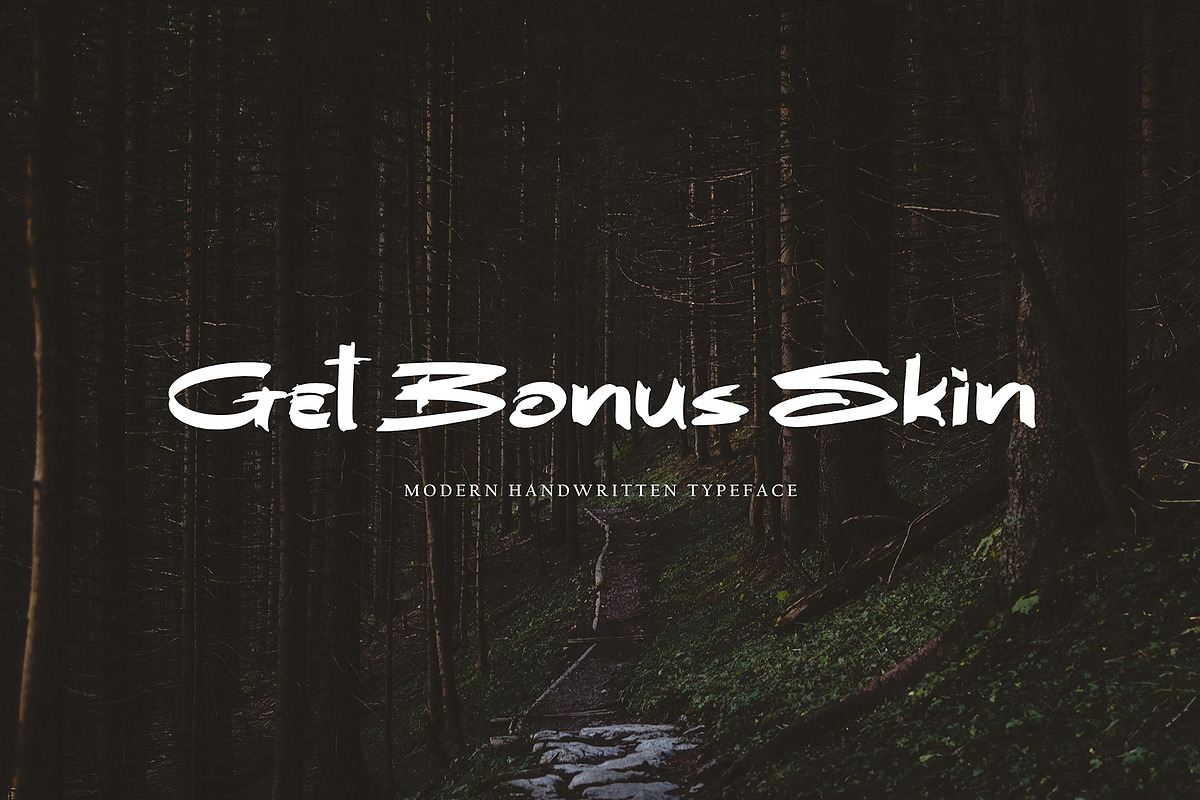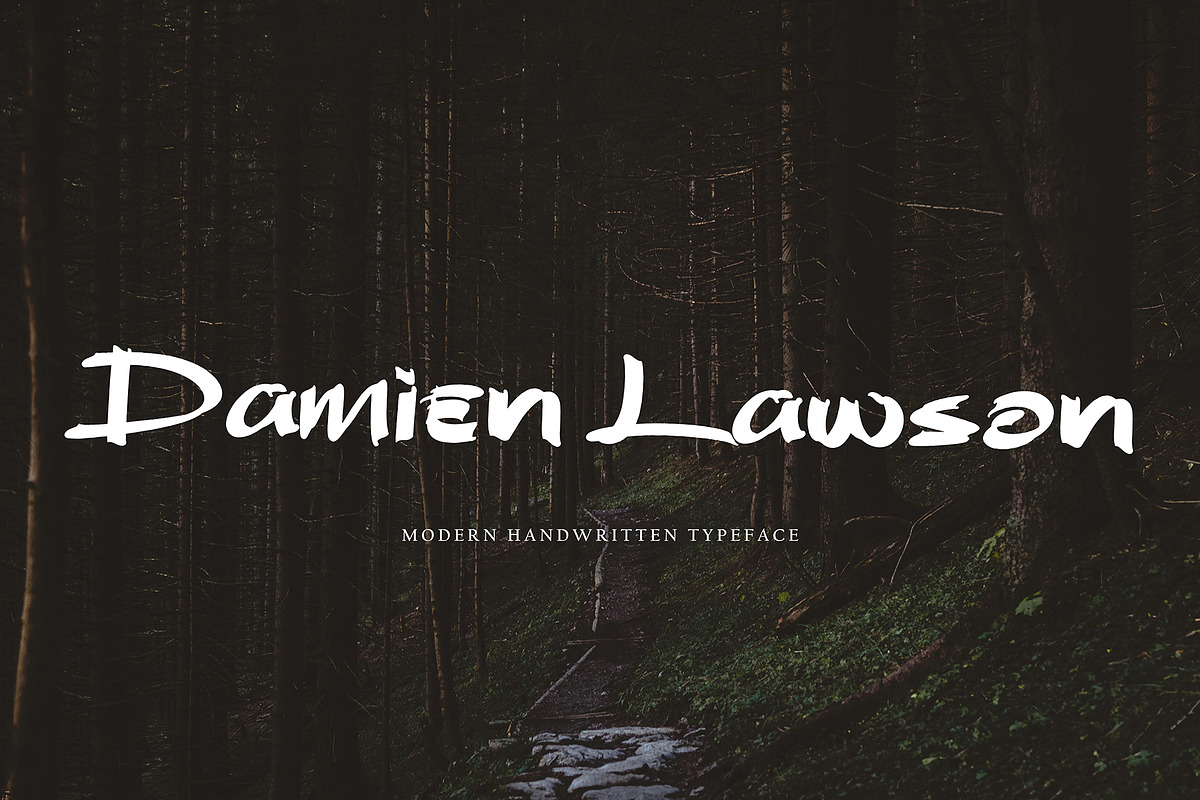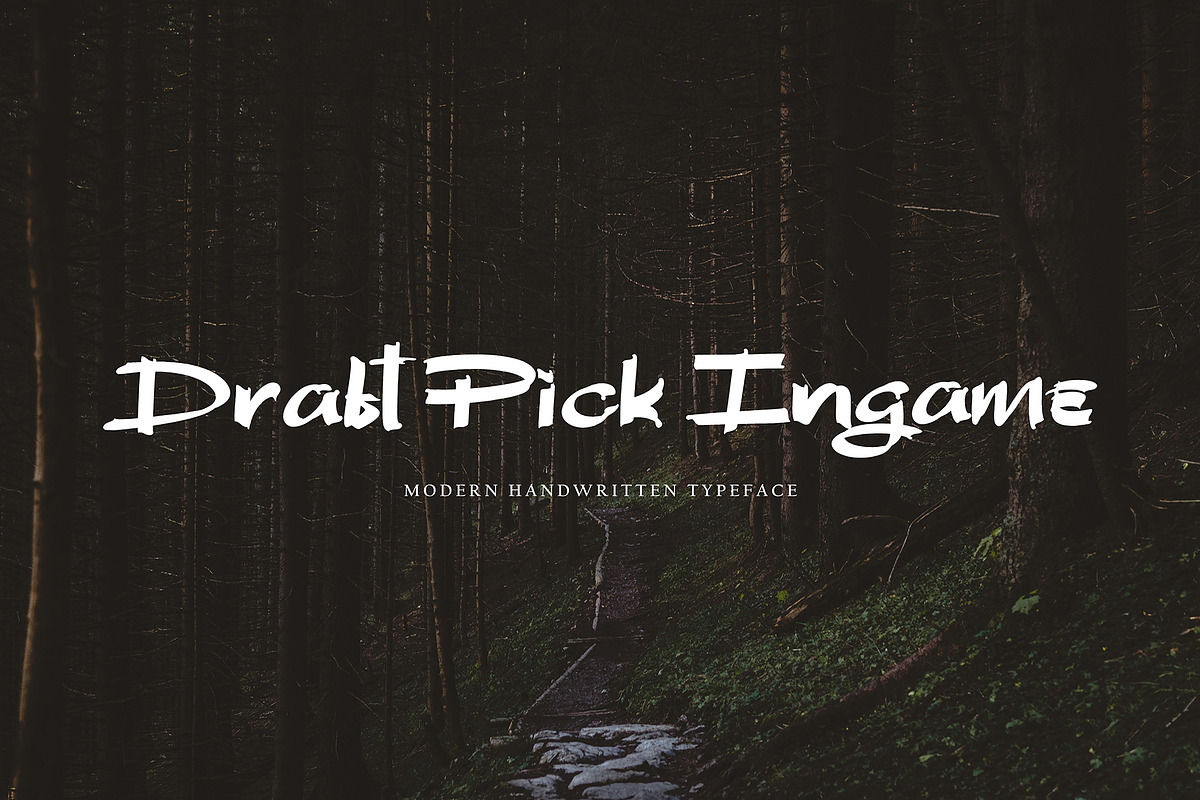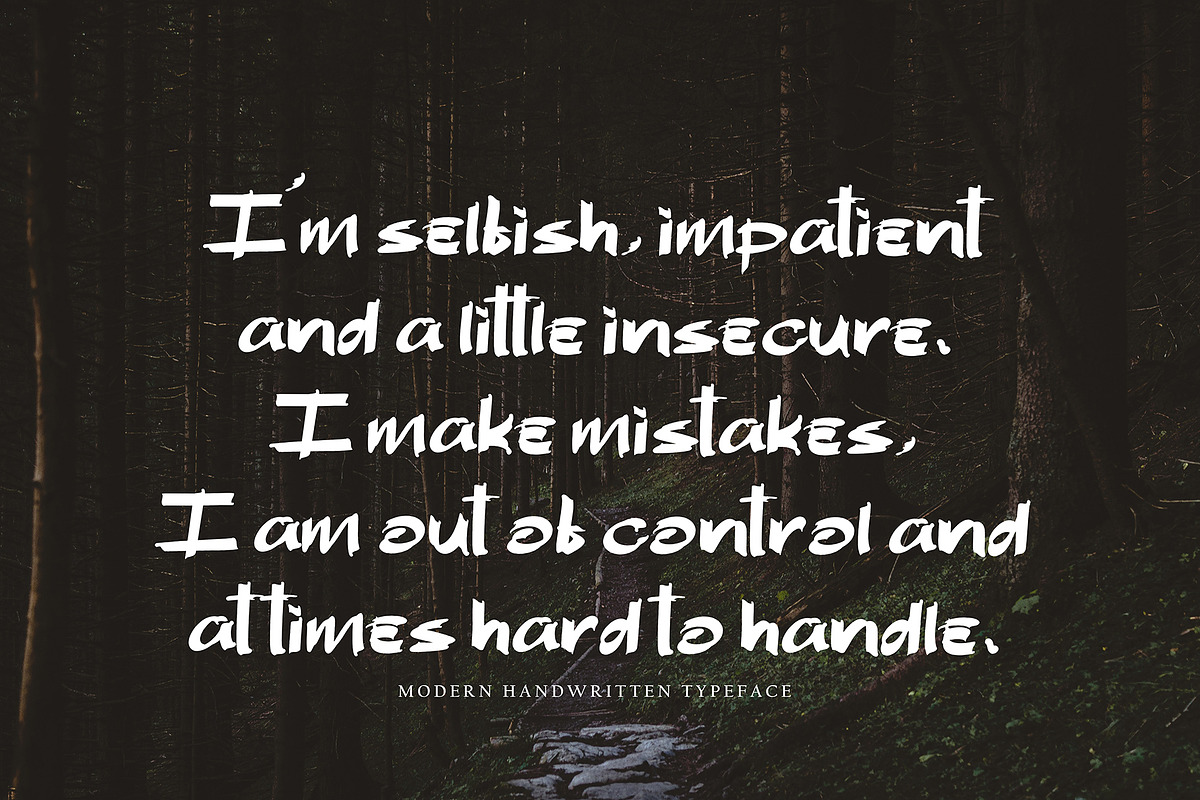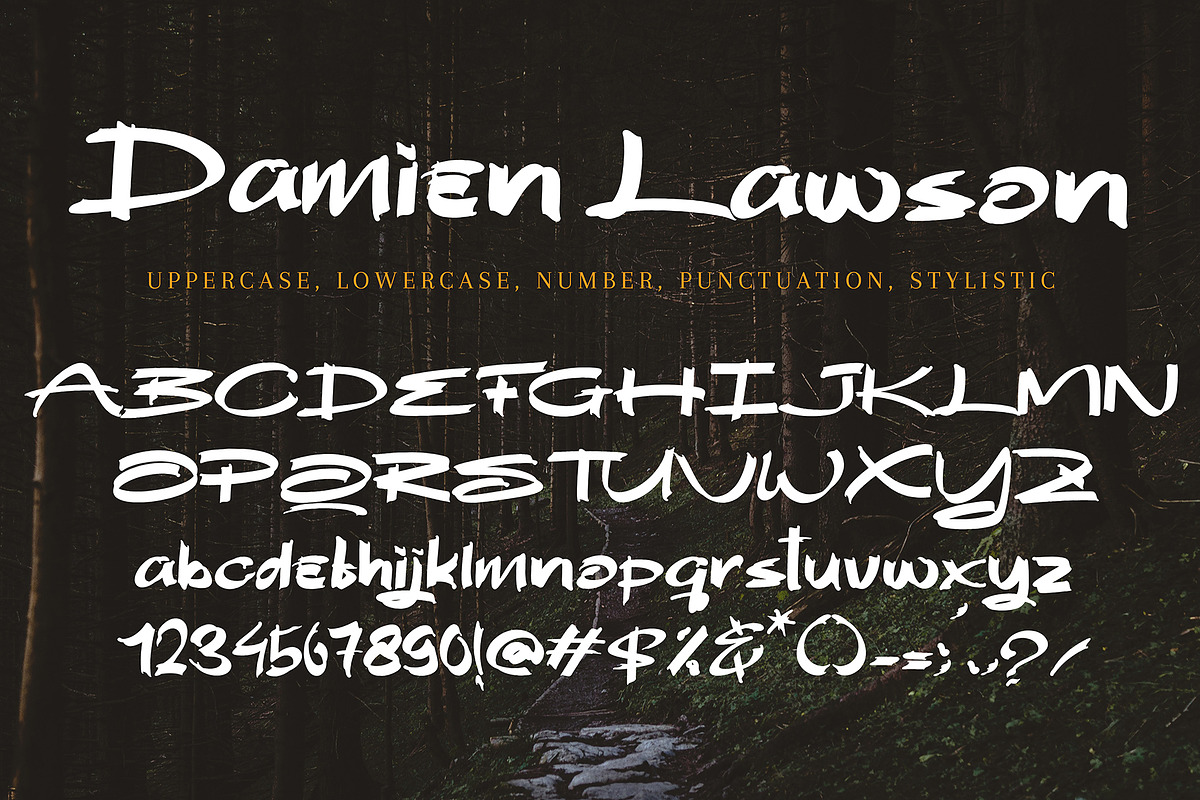
Damien Lawson
Damien Lawson with new style, this font will perfect for many different project ex: quotes, logo, blog header, poster, banding, letter, invitation, stationery, etc...